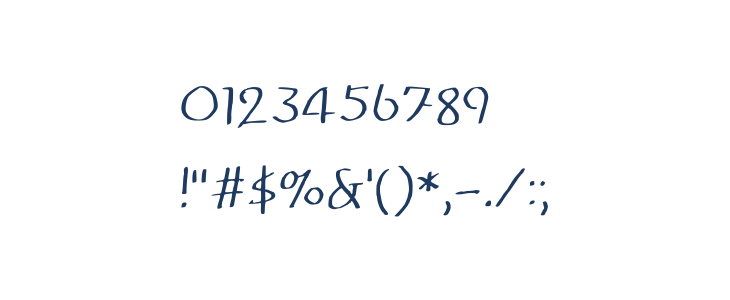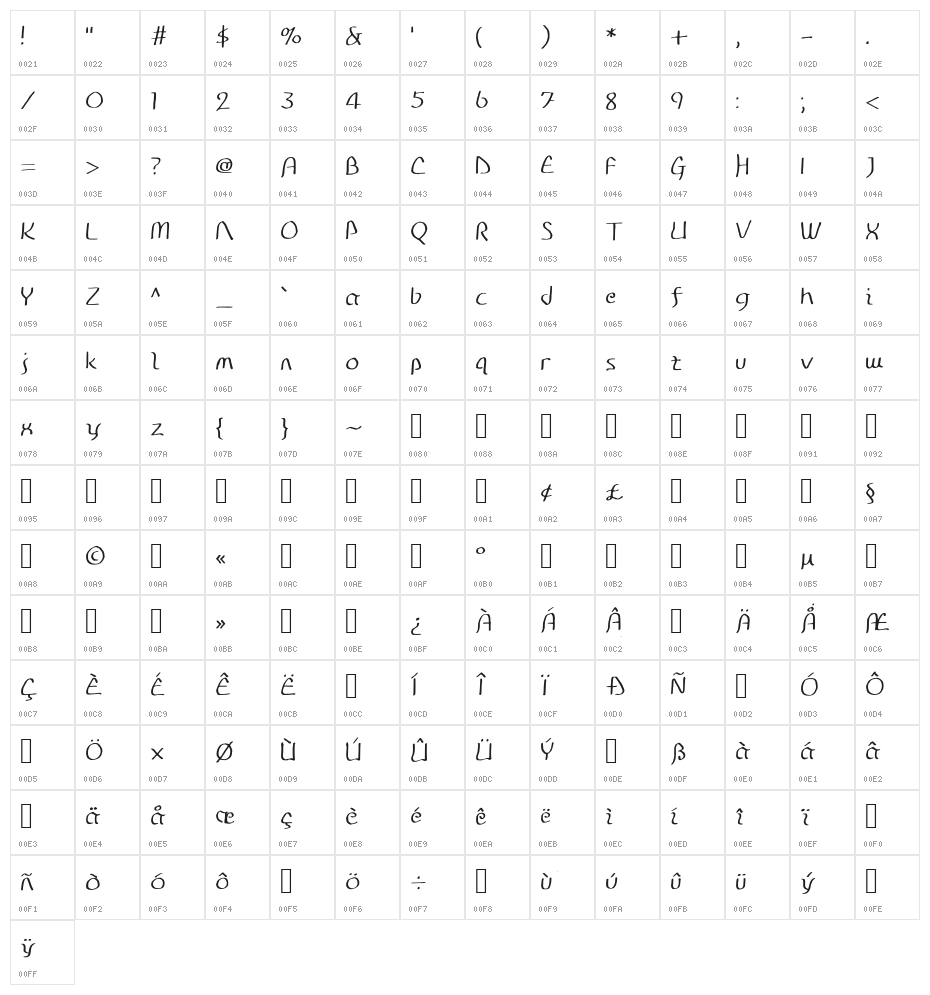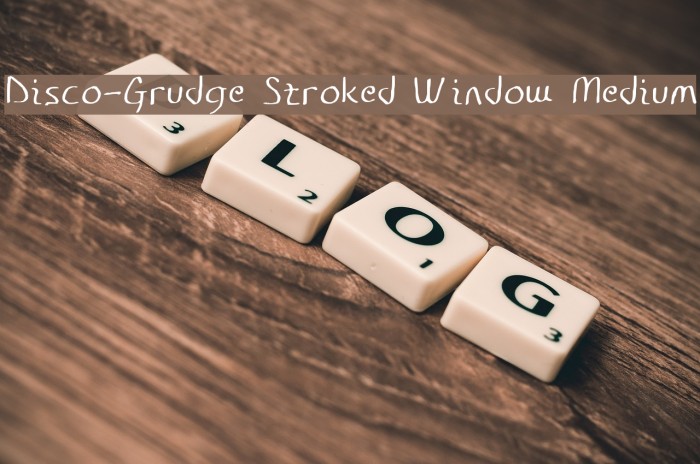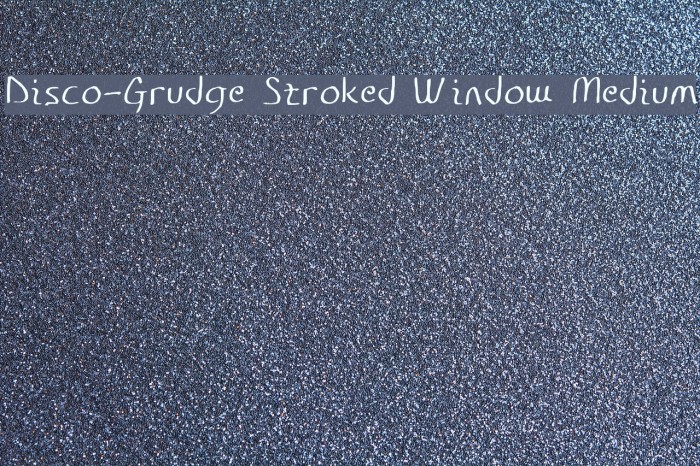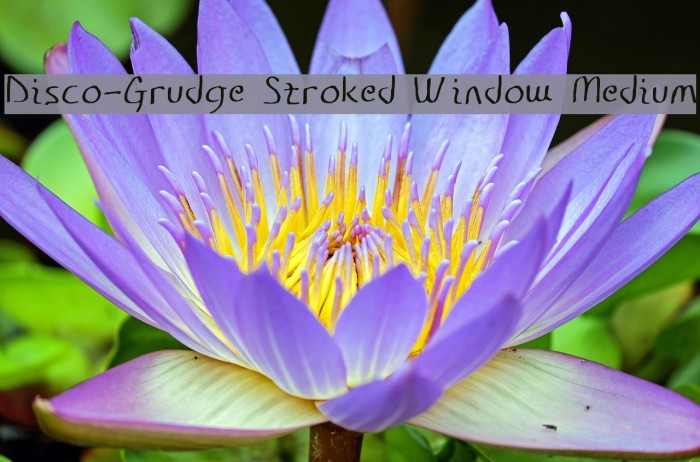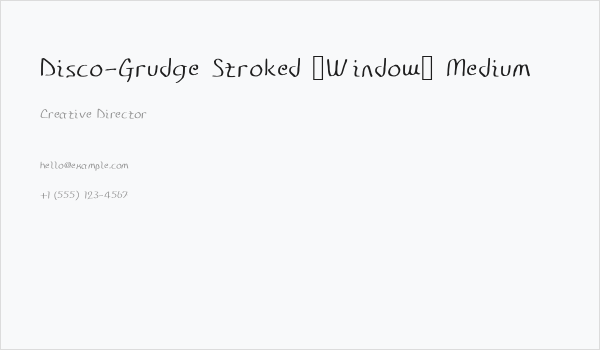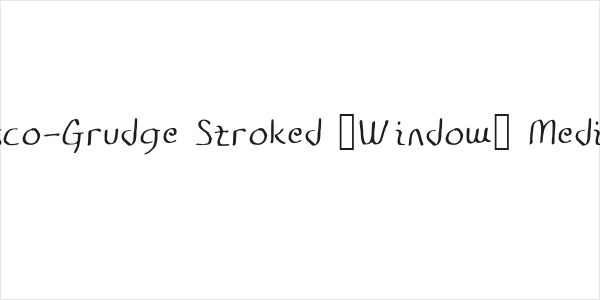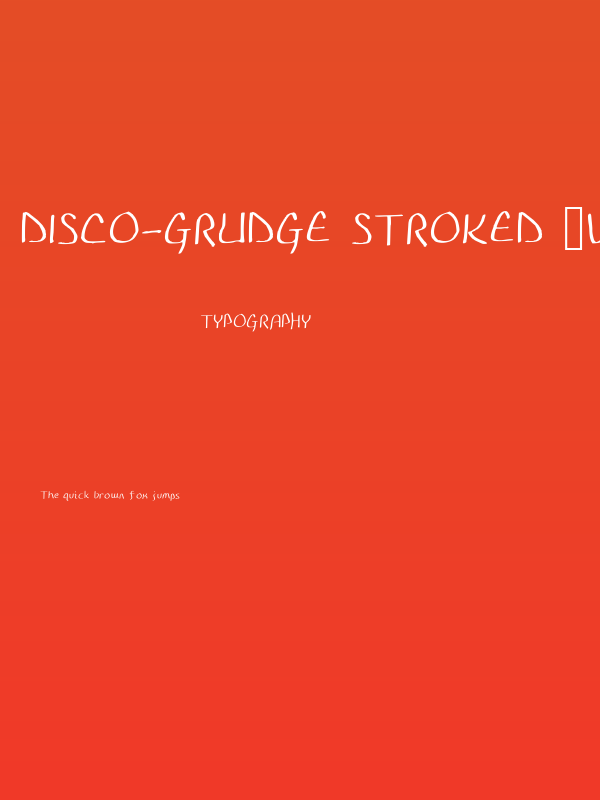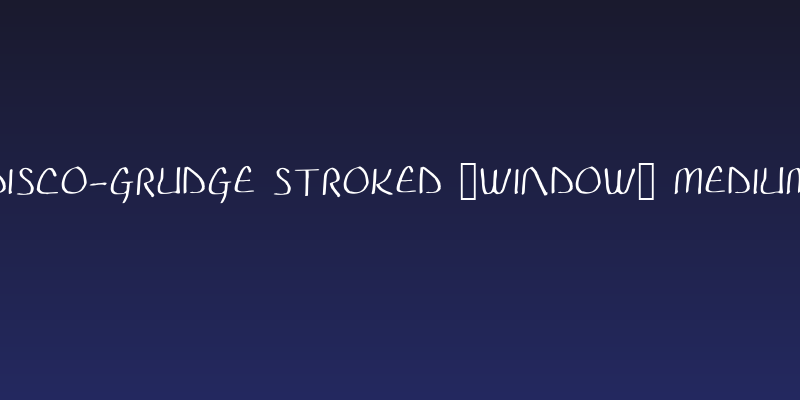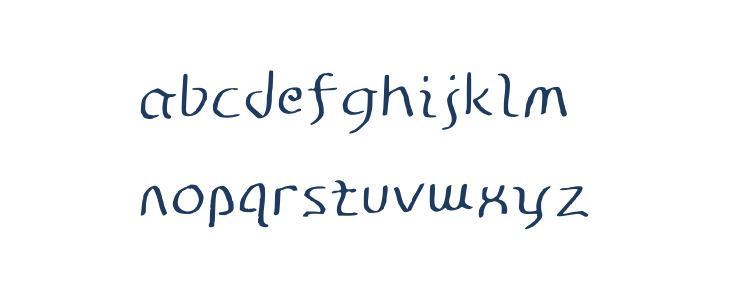
Disco-Grudge Stroked [Window] Medium Font
Disco-Grudge Stroked [Window] Medium Description
This font exhibits a unique blend of modern and vintage styles, characterized by its irregular, hand-drawn appearance. The letters have a playful, slightly distorted form that gives them a dynamic and energetic feel. The strokes are uneven, with varying thickness that adds to the font's grungy aesthetic. Despite its rough edges, the font maintains a level of readability, making it suitable for creative and artistic projects. The uppercase and lowercase letters share a consistent style, with the lowercase letters slightly more compact. The numerals and special characters follow the same design principles, ensuring a cohesive look across all characters.
| Overall Style | Grunge, Artistic |
| Use Case | Headlines, Artistic designs, Branding |
| Proposed Projects | Ideal for album covers, posters, and creative branding projects. |